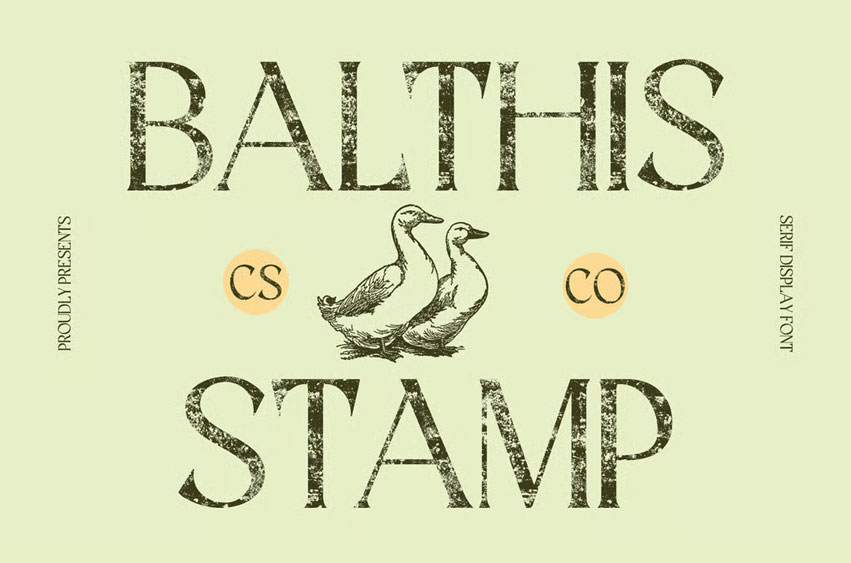
CS Balthis Stamp Font Serif with Contemporary Structure. This is a classic serif font that merges long, slender serifs with a clean and modern design, offering a look of timeless sophistication. Each letterform is crafted to balance grace and clarity, making it ideal for editorials, branding, and high-end design projects where precision and refinement are key.
Stamp Texture for Artistic Character. The defining feature of this font lies in its textured stamp effect, which adds a tactile, handcrafted charm to its otherwise polished form. This texture infuses the typeface with a vintage and expressive personality, creating visual depth and authenticity. It evokes the charm of traditional print, giving every word a sense of handcrafted artistry and nostalgic warmth.
Versatile for Elegant and Creative Applications. This font’s combination of classic structure and organic texture makes it an excellent choice for luxury packaging, magazine titles, logos, and poster headlines. Whether paired with minimalist layouts or ornate visuals, it stands out effortlessly, maintaining both sophistication and visual appeal.
Where Tradition Meets Modern Expression. This font captures the harmony between classic elegance and modern creativity. With its refined details and vintage texture, this font delivers a distinctive, high-end aesthetic perfect for designers who want to convey both professional grace and timeless artistry in their work.